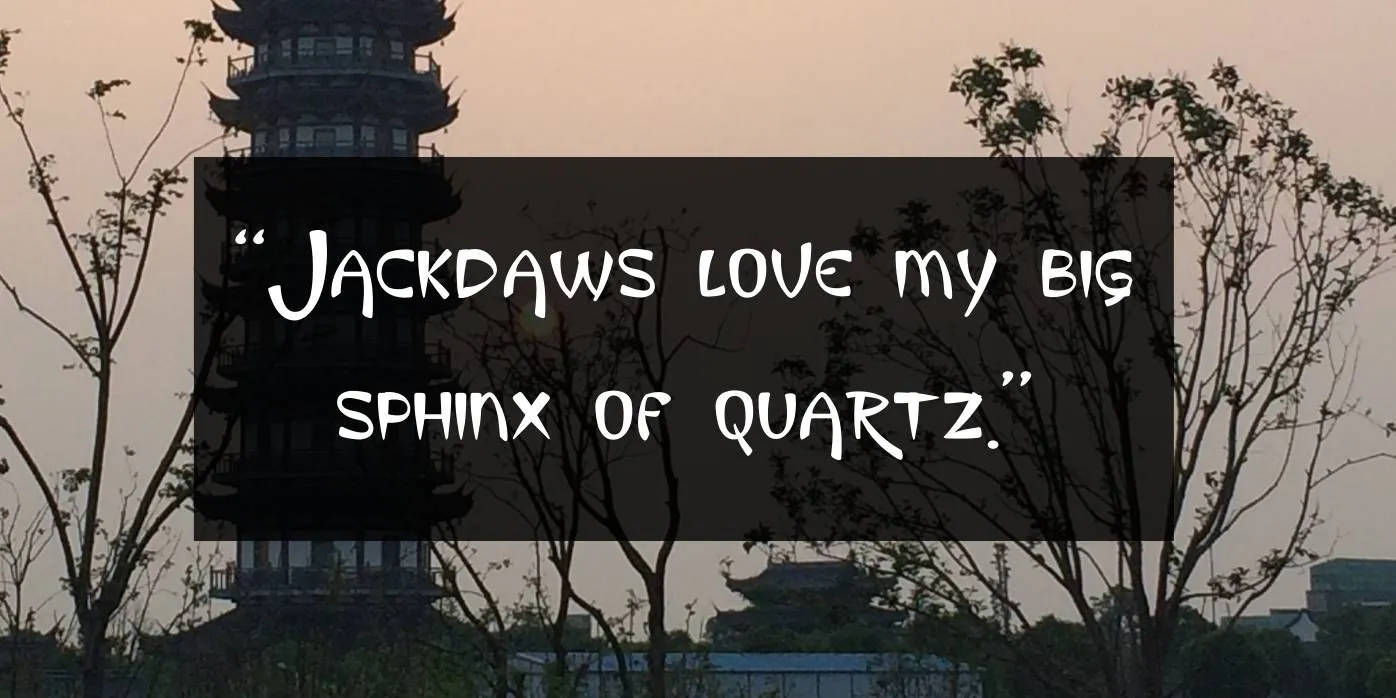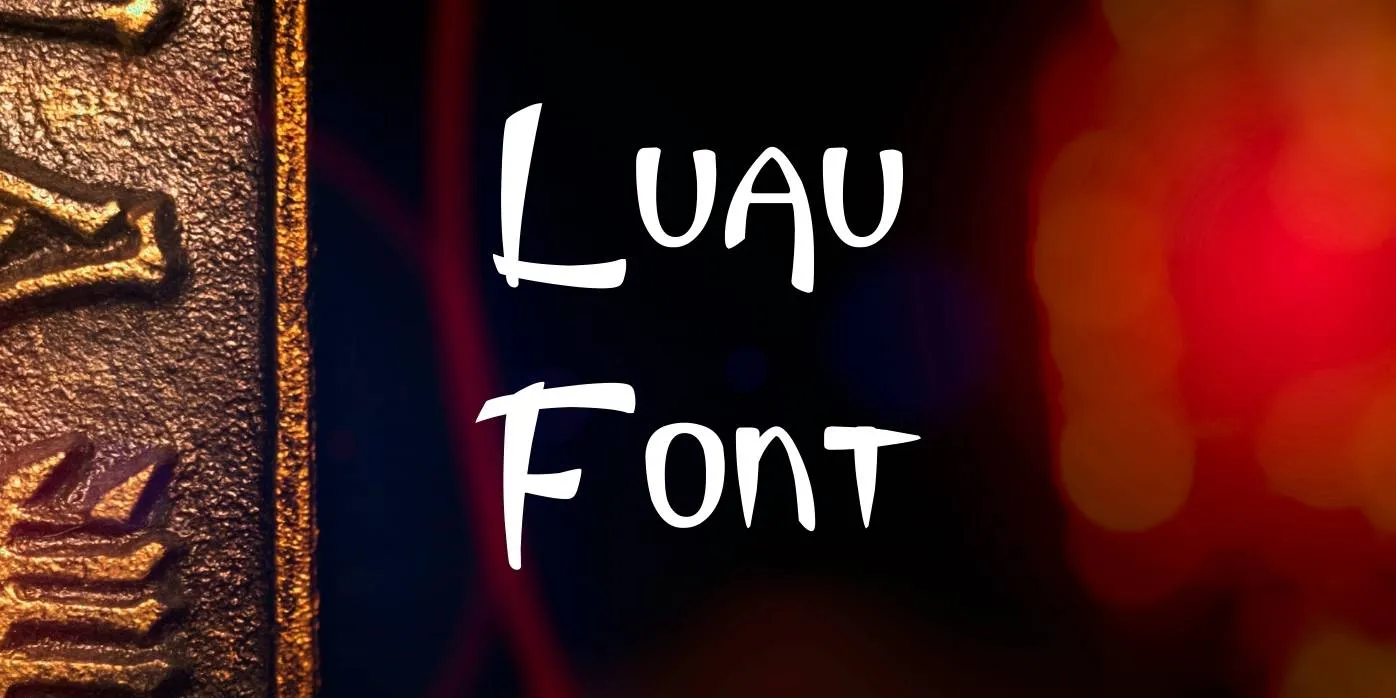
Luau Font
Today we introduce a classic typeface named luau font. This typeface belongs to the fancy font family. It was designed and shared by Steve Ferrera. This typeface is available in uppercase, lowercase, and Webfont formats.
It is not from googles fonts. It’s similar obilex pro font that has the same features and is best for various designs. This staggering typeface includes more than 277 characters and 230 glyphs. This font also supports multiple languages.